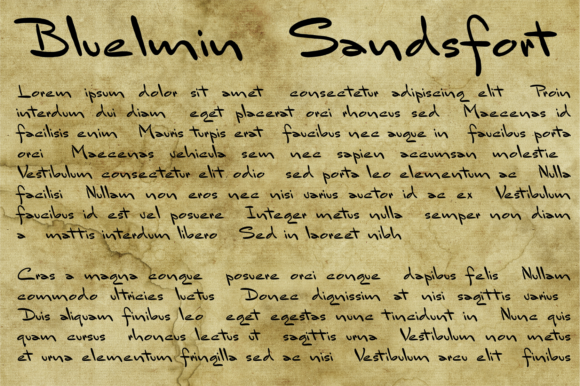
HomeScript FontsBluelmin Sandsfort Font Script Fonts Bluelmin Sandsfort Font FacebookXPinterestWhatsApp About Bluelmin Sandsfort Font The Bluelmin Sandsfort is a naive handwritten font which will add an unique touch to your designs. DOWNLOAD NOW People also explored Natasha Crimosly Font Hello Finger Font Atlantha Font Melisca Font Gemyta Font Bonfires and Beaches Duo Font Montelova Font Brother Font Outline Font 344 0 TagsBluelmin Sandsfort Font Previous articleButtering FontNext articleBungah Font LEAVE A REPLY Cancel reply Comment: Please enter your comment! Name:* Please enter your name here Email:* You have entered an incorrect email address! Please enter your email address here Website: Save my name, email, and website in this browser for the next time I comment. Personal Use Free Green Farmhouse Personal Use Free Read more about this font Velasco Personal Use Free Read more about this font The Bocah Personal Use Free Read more about this font Dacquoise Personal Use Free Read more about this font BLOG Fonts That Capture the Spirit of New York City New York City is more than just a place—it’s an experience, a rhythm, a visual language... Where to Buy American Fonts Online in 2024 How to Install and Use Fonts on Windows, macOS, and Web Projects Top 10 Handwritten Fonts That Elevate Your Designs